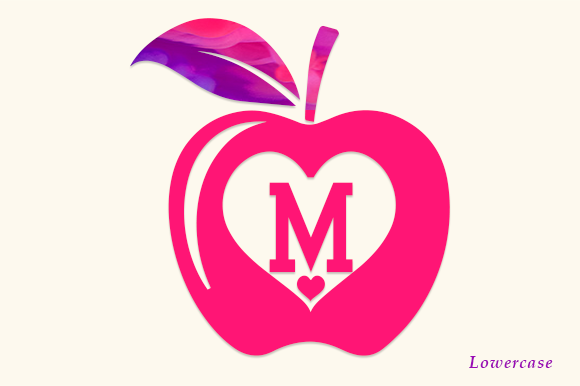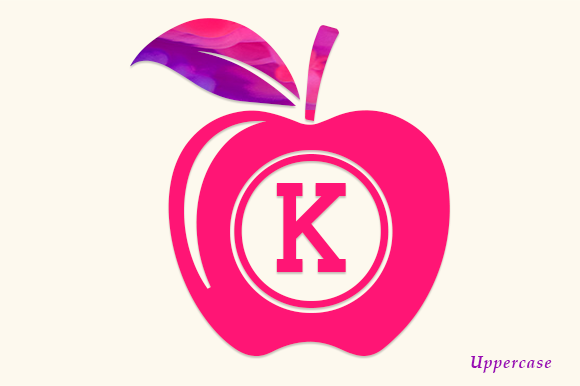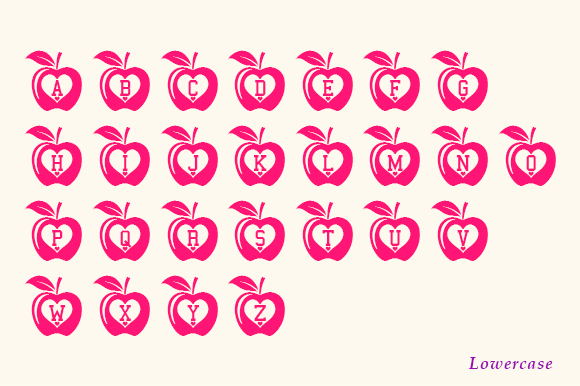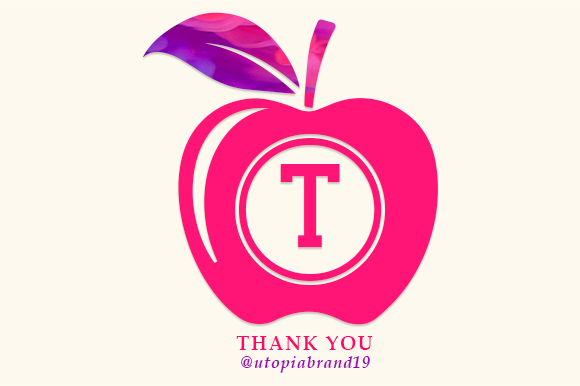
Introduction to Apple Monogram Font
Apple Monogram is a versatile and authentic decorative font.
Add this lovely looking font to each of your menus, invitations or favorite design ideas, and you will be astounded by the outcome .